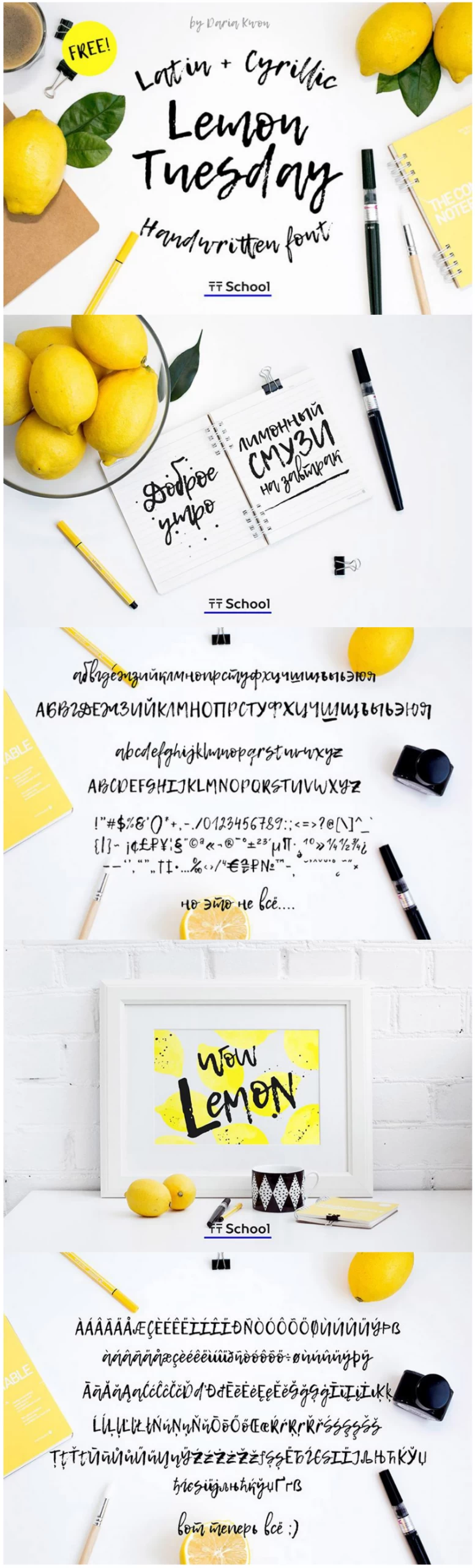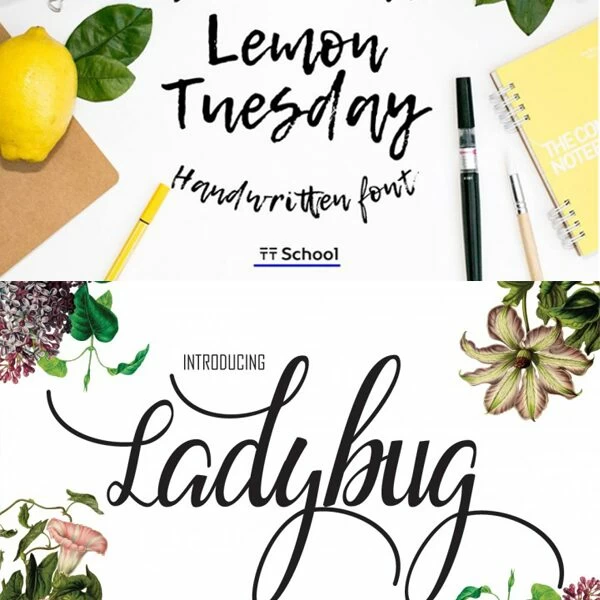
Free Script and Brush Fonts:
Especially the beautiful Ladybug Script font that is available for only 1 week!
Next is a wonderful brush script called Lemon Tuesday!
It has a fresh modern feel; a real gem for your font collection!